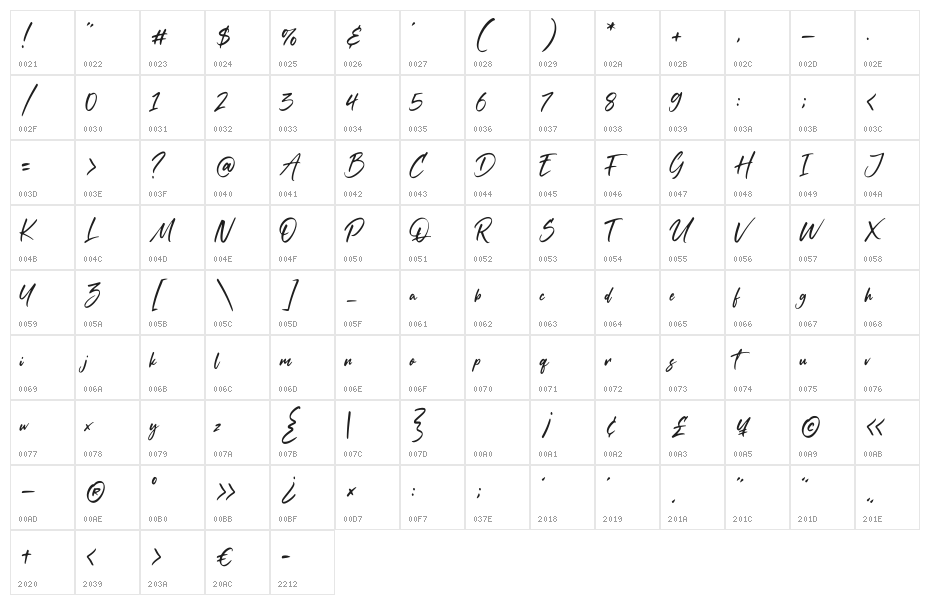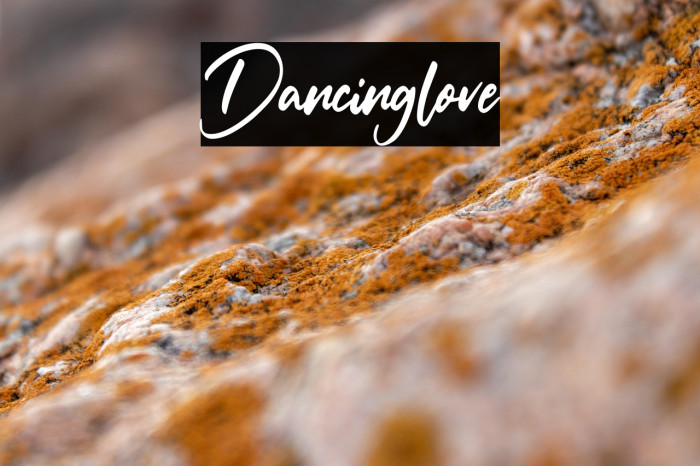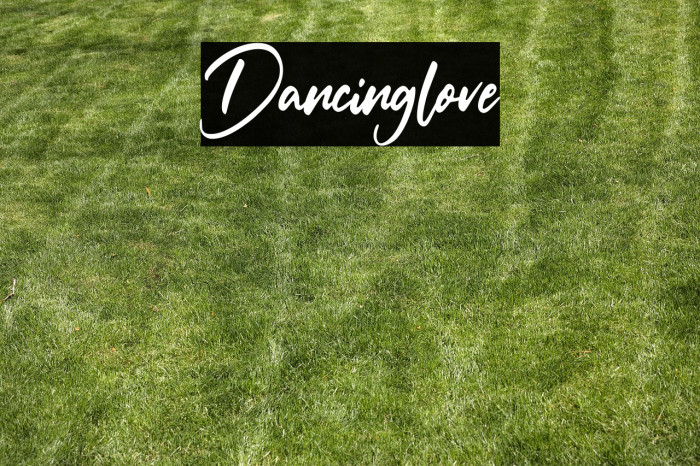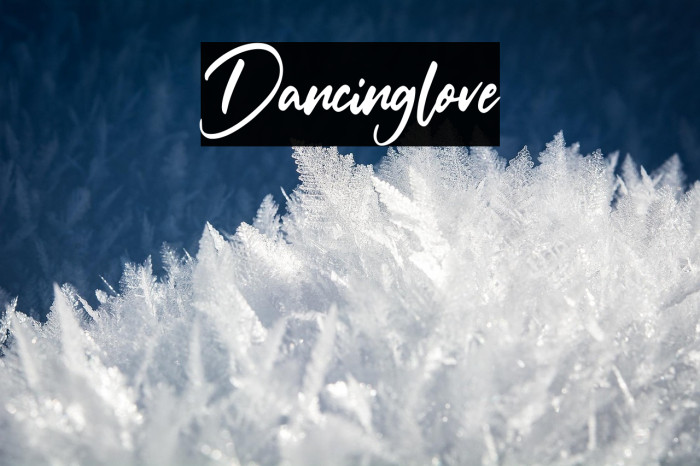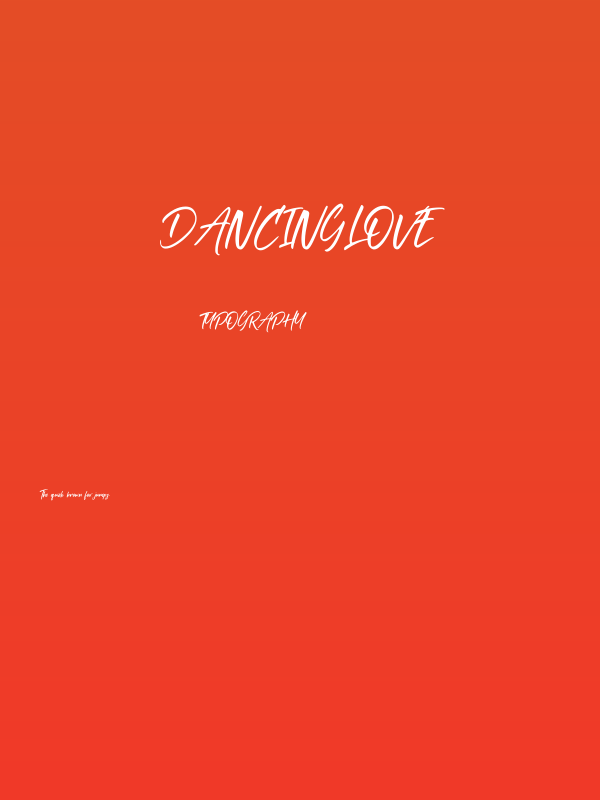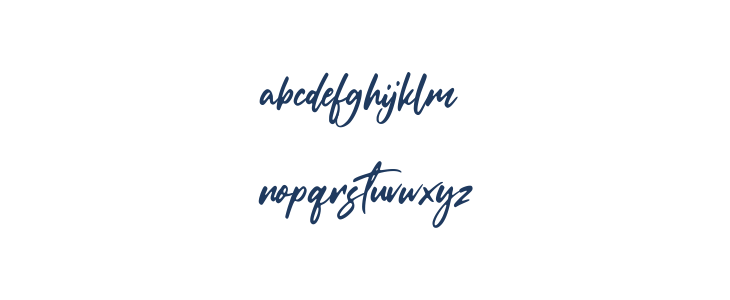
Dancinglove Font
Dancinglove Description
This font exudes a lively and expressive style, characterized by its fluid, cursive script that mimics elegant handwriting. The letters are connected with smooth, flowing strokes, giving it a dynamic and rhythmic appearance. The uppercase letters are bold and sweeping, while the lowercase letters maintain a consistent flow, enhancing readability. The numbers and special characters follow the same cursive style, ensuring uniformity across all elements. This font is perfect for adding a personal touch to any design, making it ideal for invitations, greeting cards, and other creative projects.